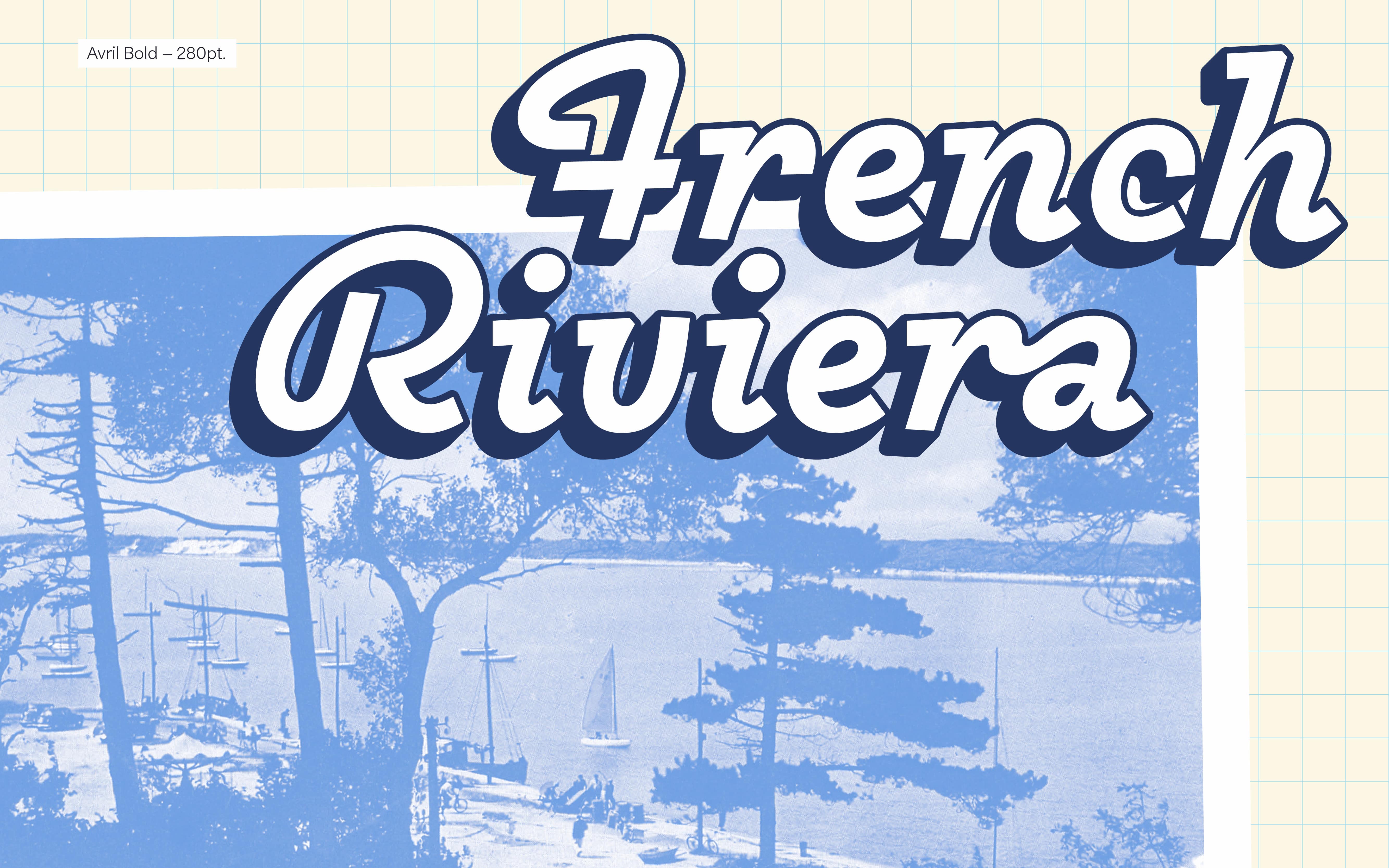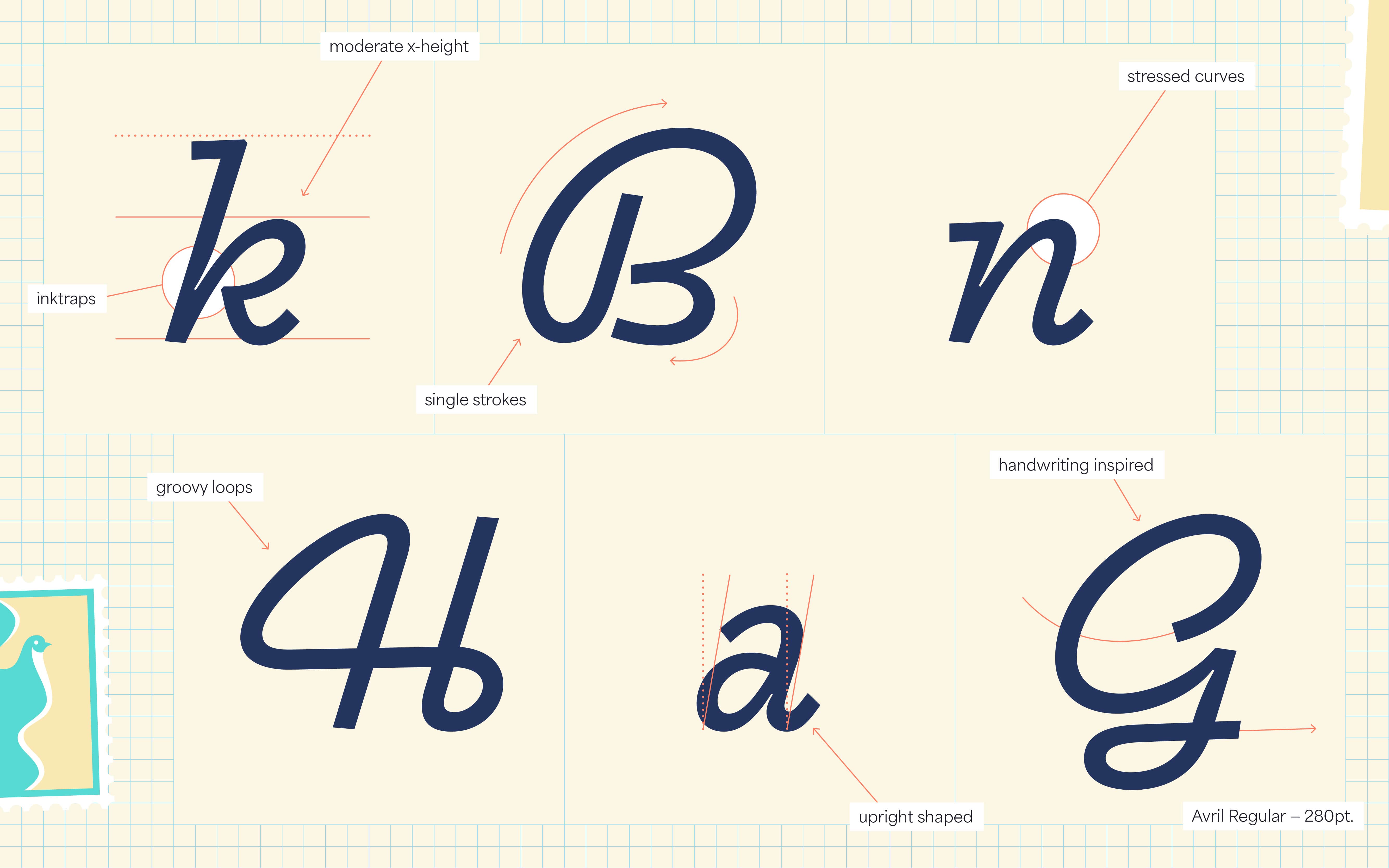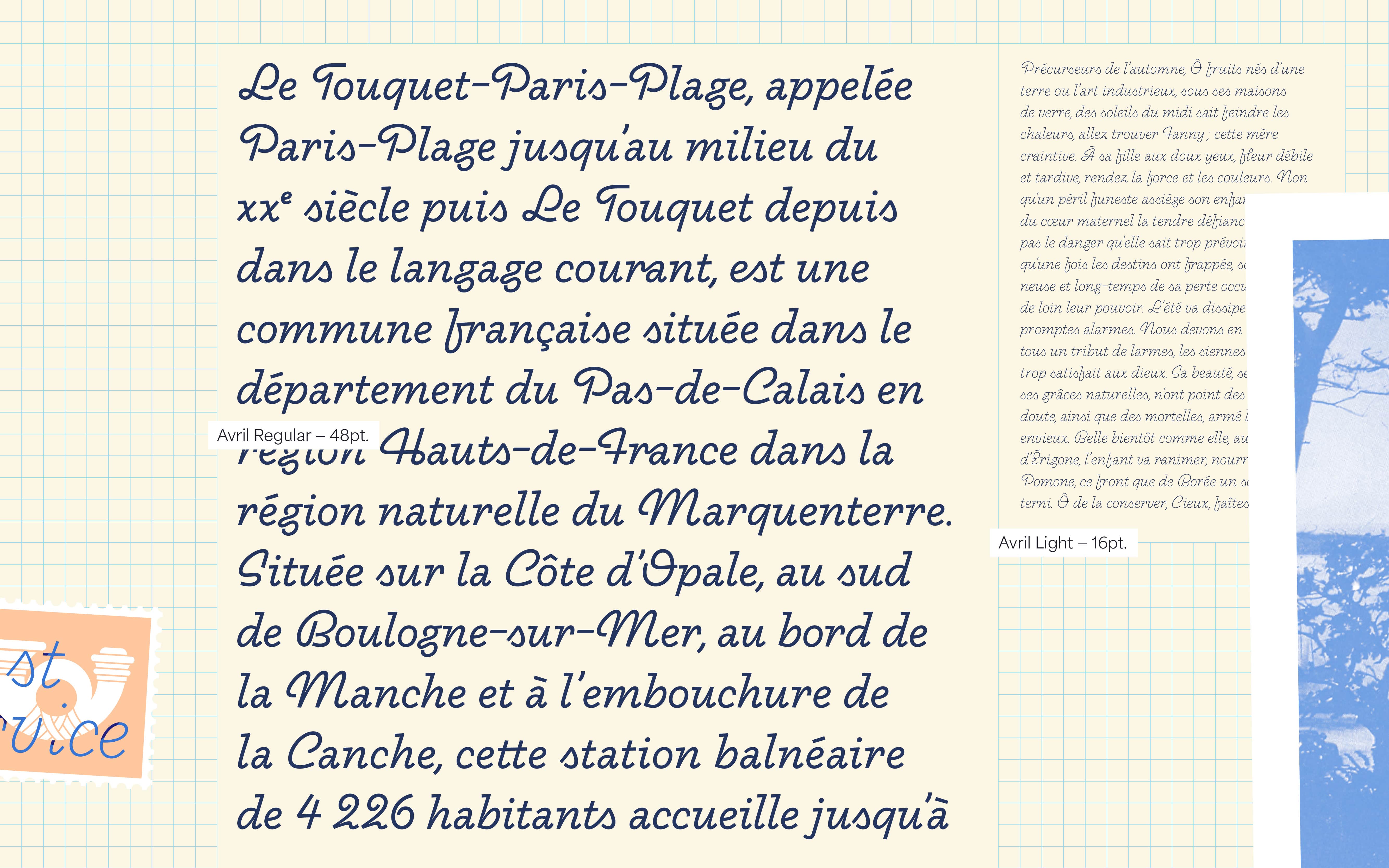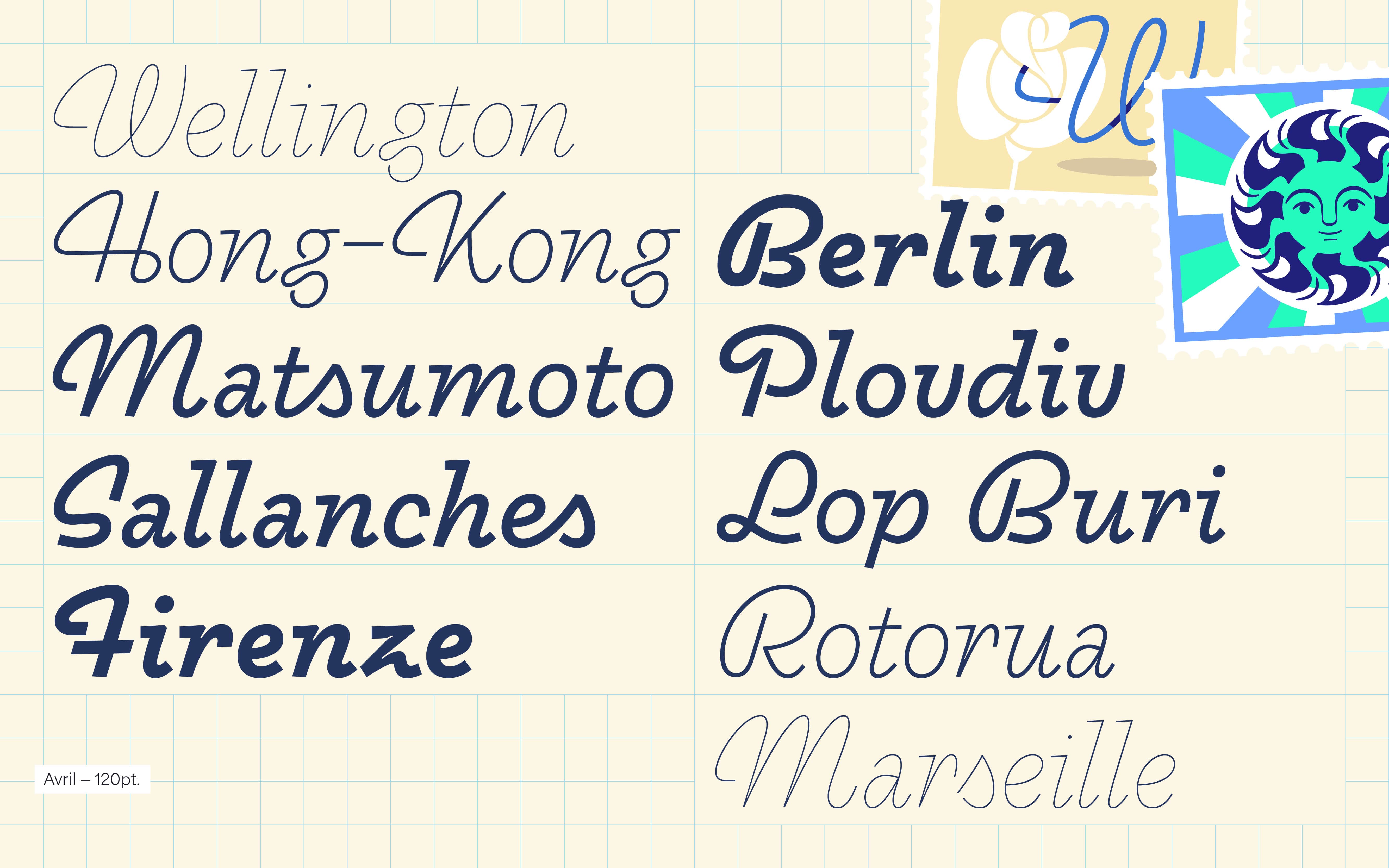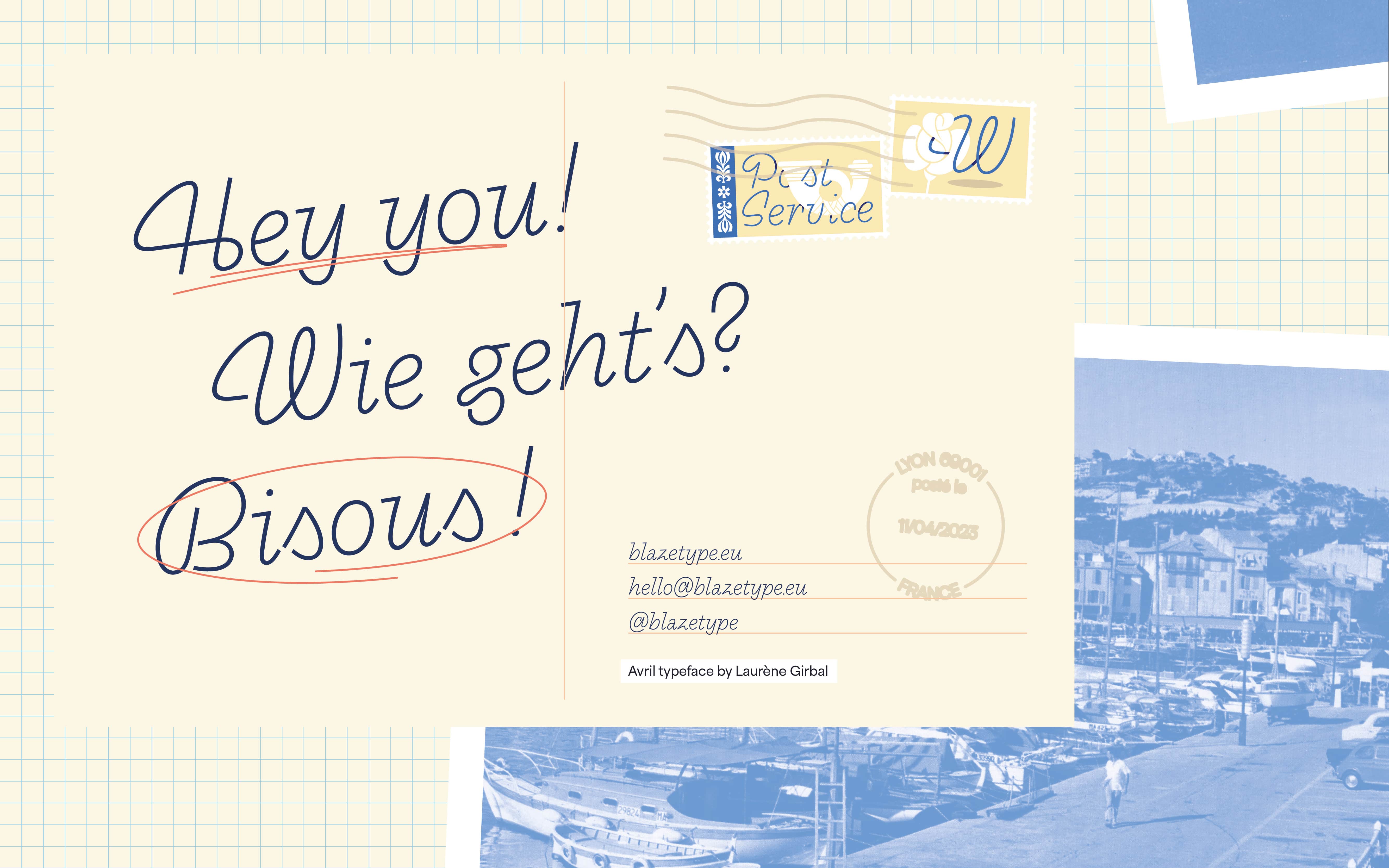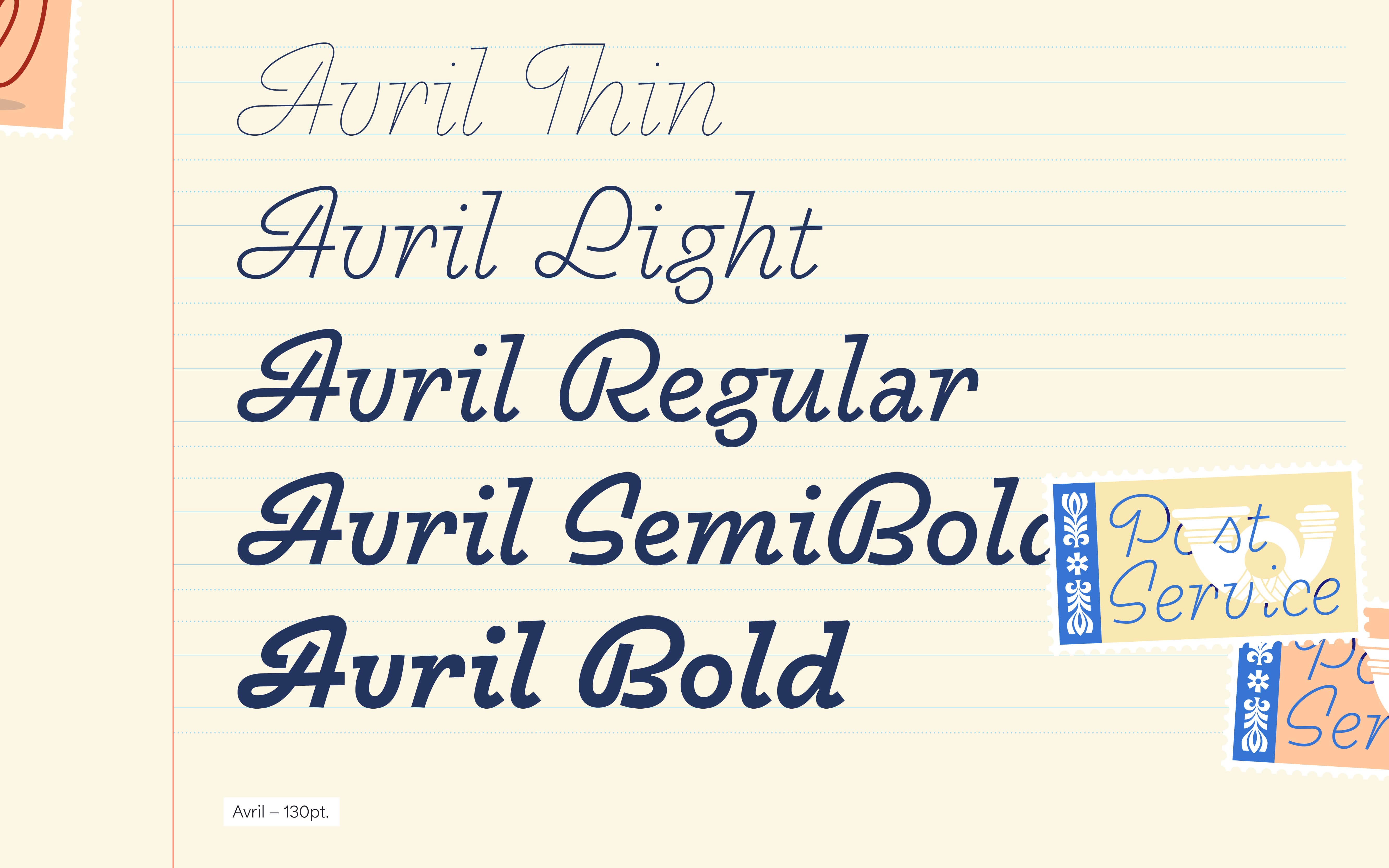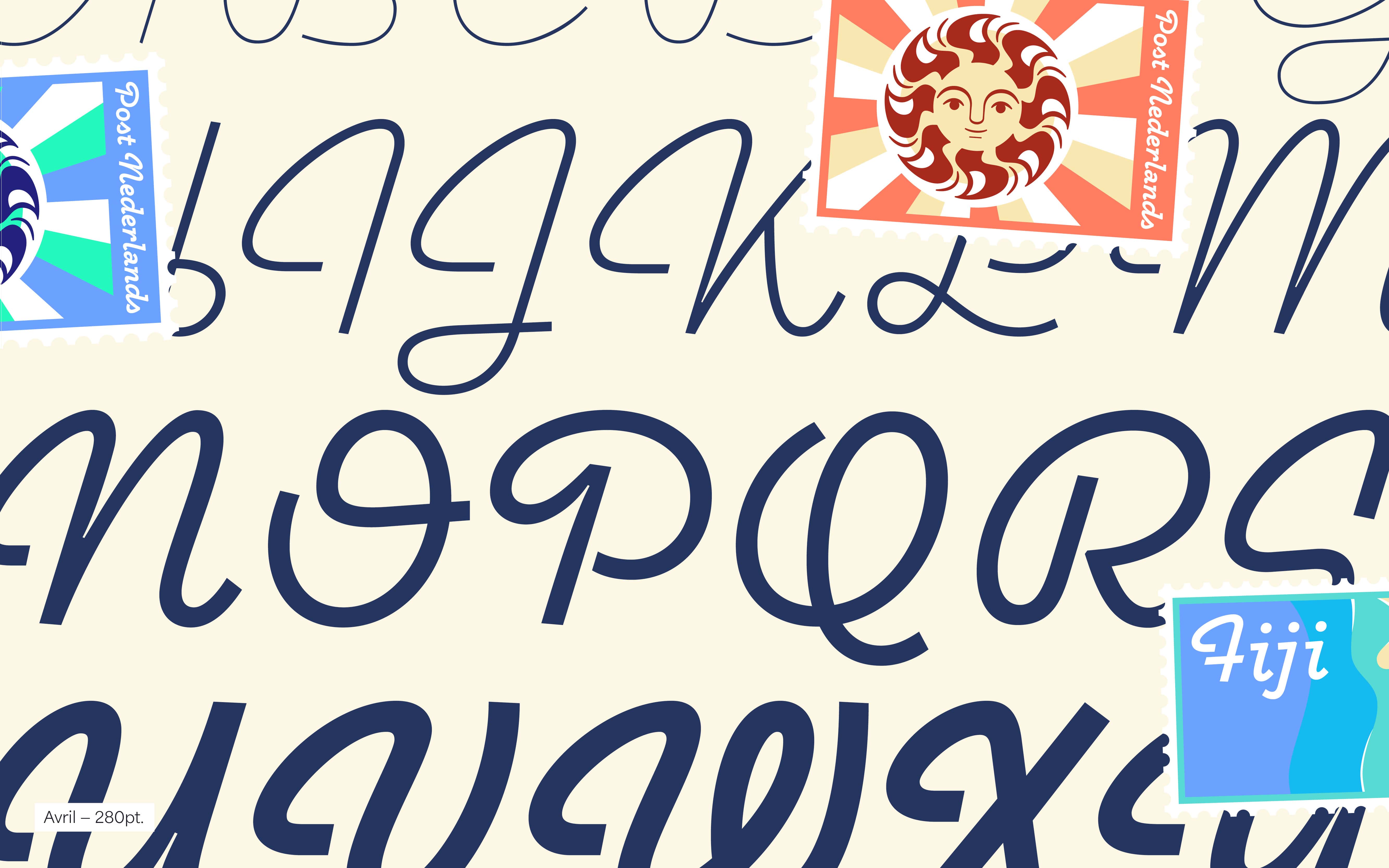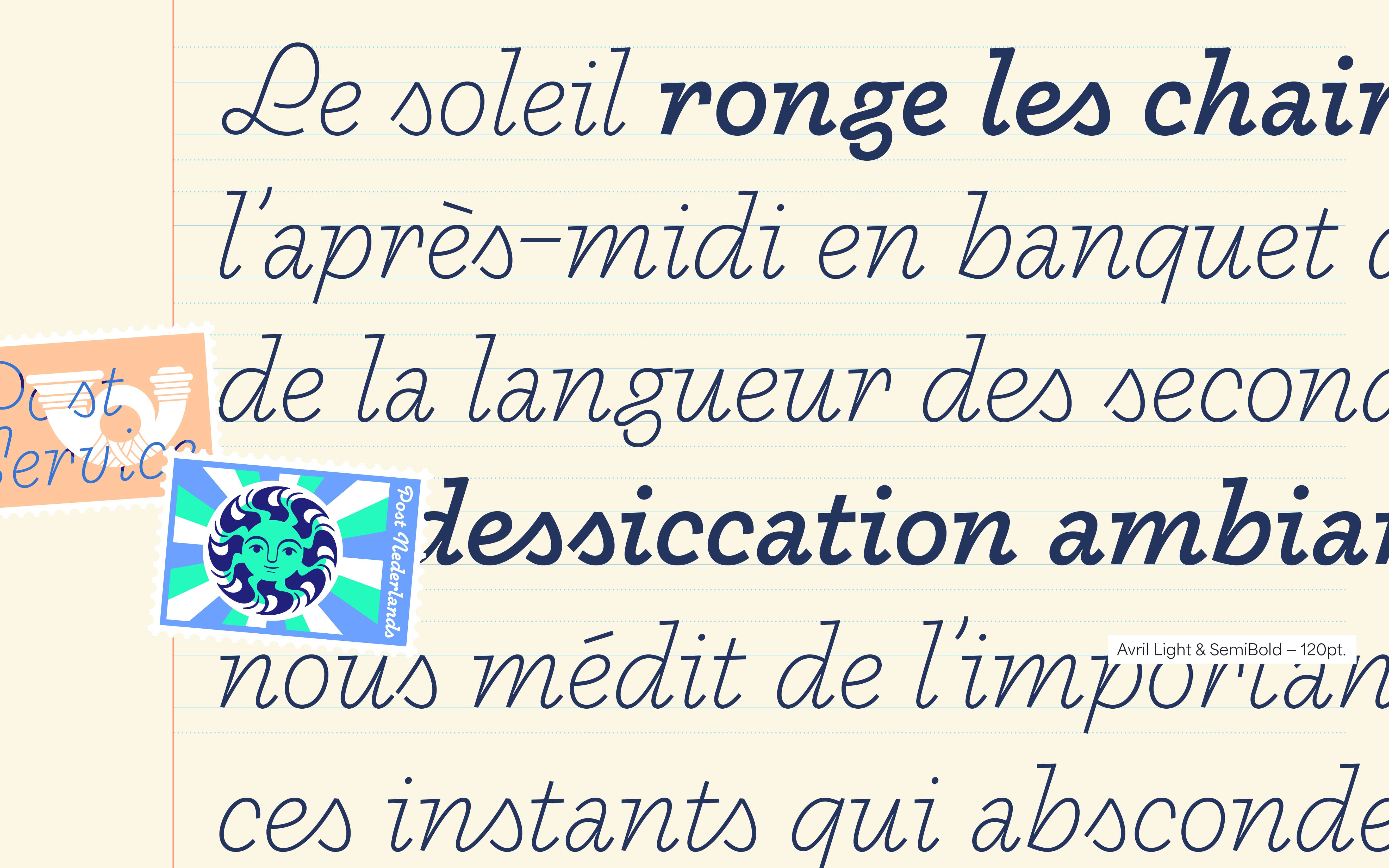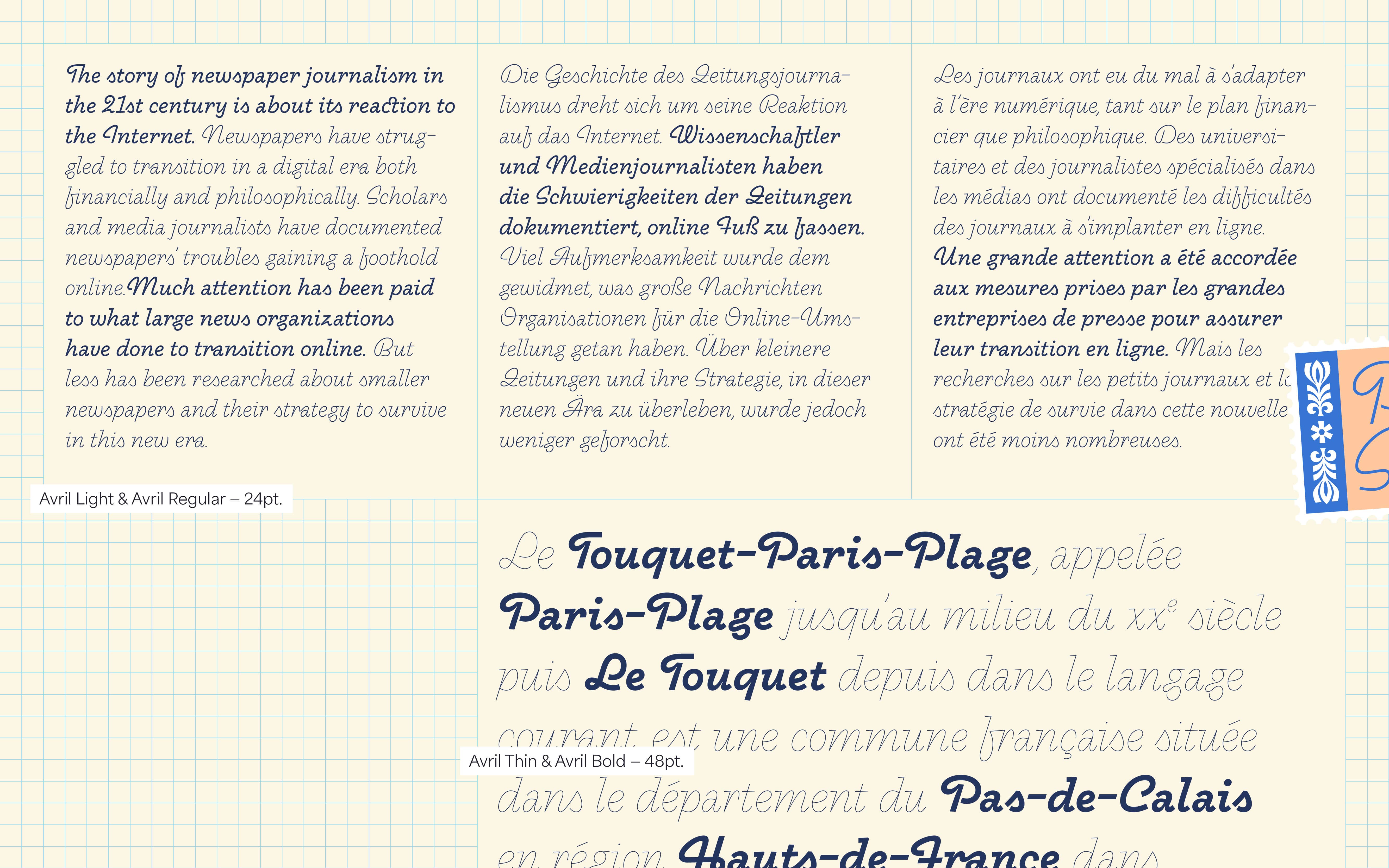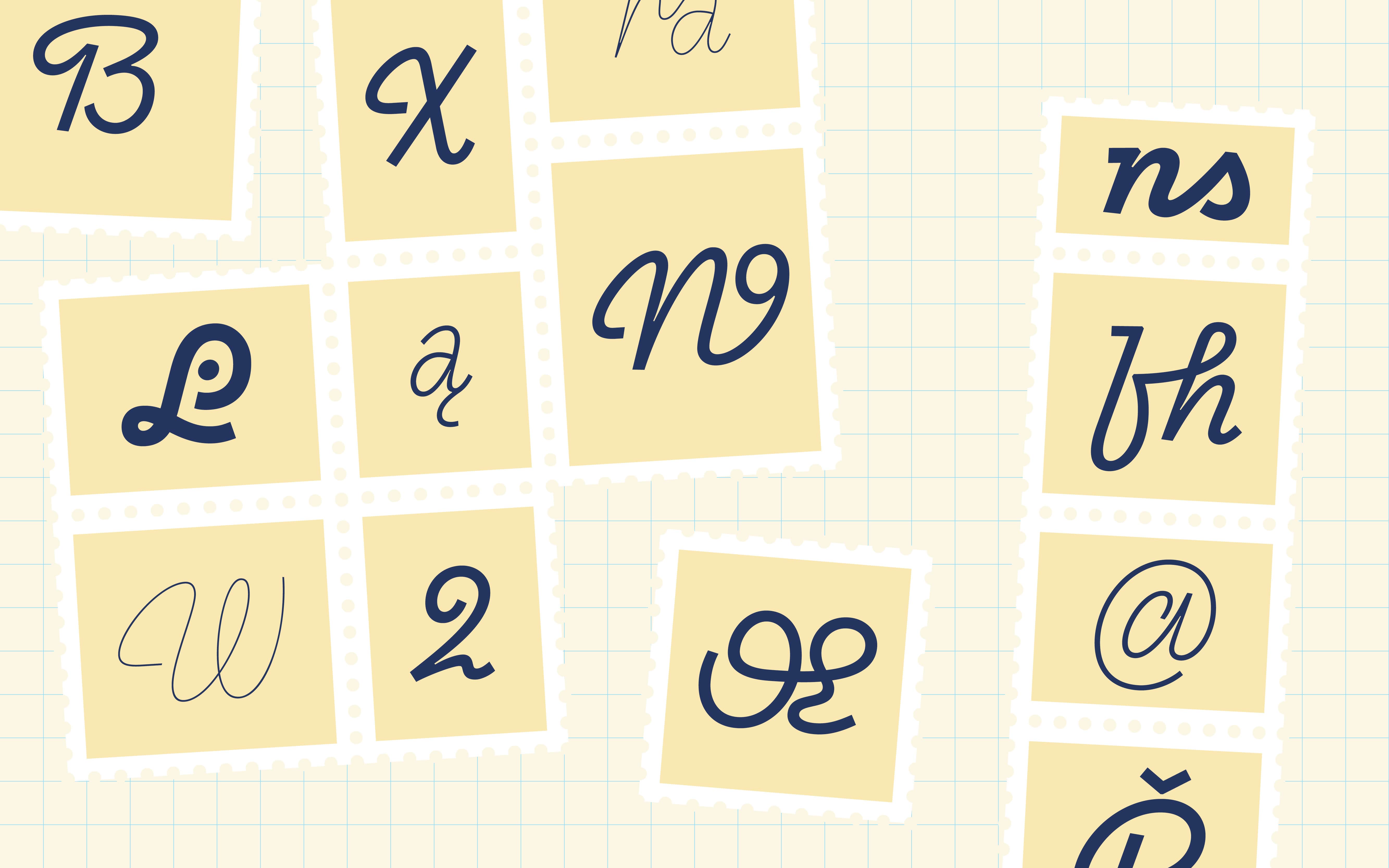
Avril
Avril font is a chill but lively script typeface loosely inspired by a french sign painting advertising books from the fifties “La lettre dans la peinture et la publicité” from Jean Joveneaux. The font features expressive semi-connecting characters, stressed moments low contrast that mimic a dynamic handwriting. Its loopy curves that seem traced out an unbroken line make Avril font a chill, playful and distinctive script typeface. Originally developed in one weight, the font has grown into five styles from thin to bold. It was initially thought for display applications, but the chilled lighter styles perform well for longer paragraphs whereas bolder weights will be ideal for headlines. And lastly, the name of this typeface was chosen as a tribute to spring and its refreshing vibes. Avril font is inviting you to a chill Saturday afternoon, ideally during an exciting travel. Welcome aboard!
Laurene Girbal